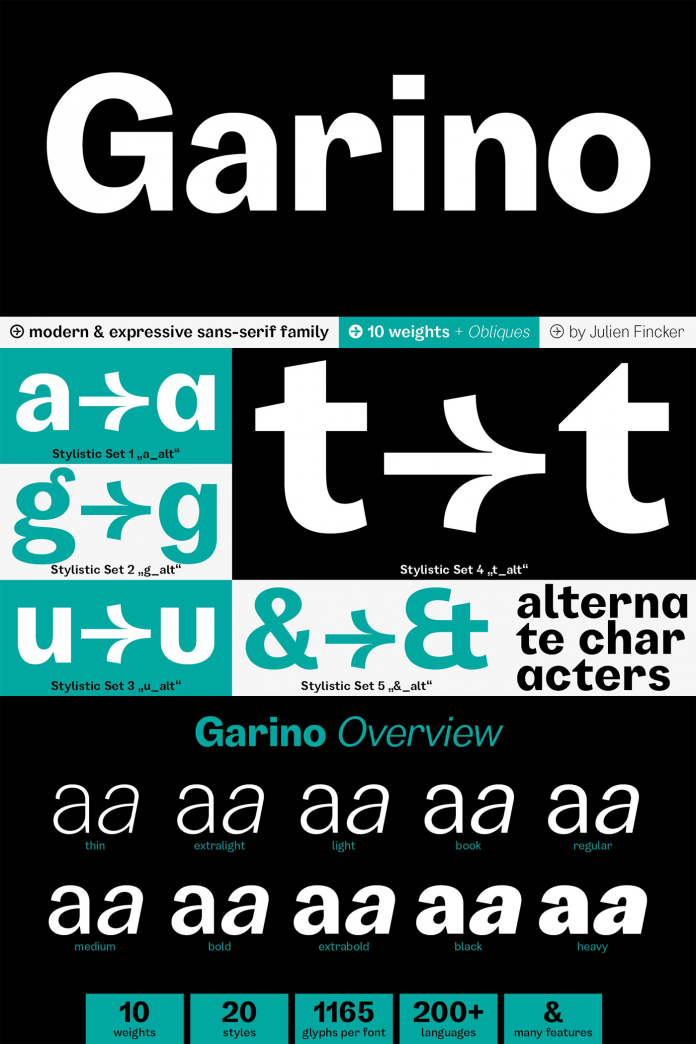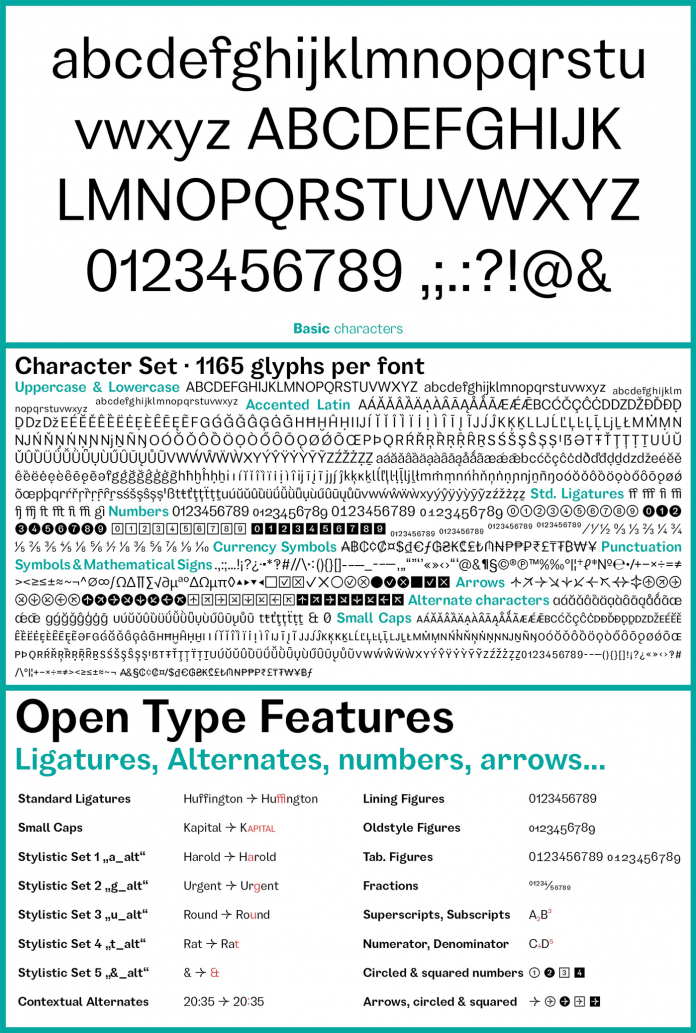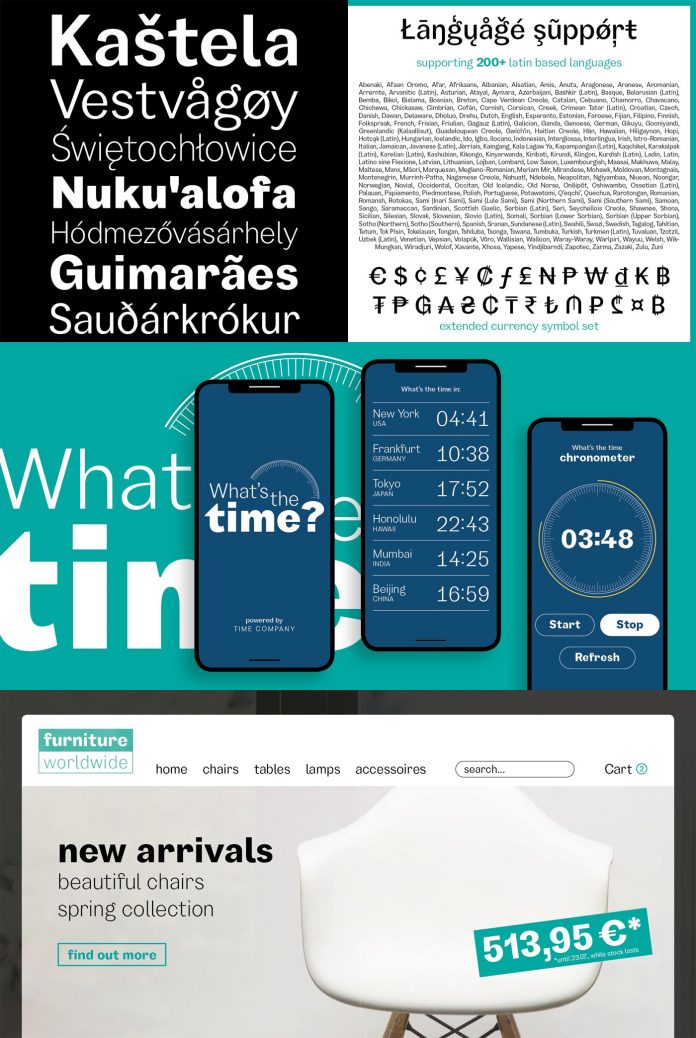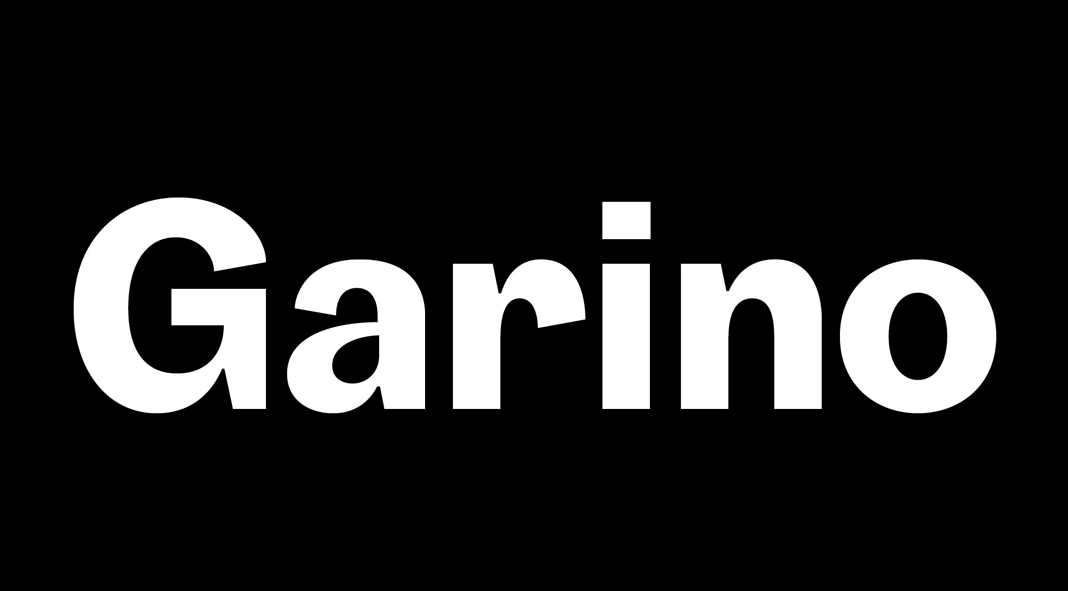
Garino, an expressive sans-serif font family with many typographic features.
Designed and published in 2021 by Julien Fincker, Garino is a modern sans-serif font family that gains its expressive look from a dynamic sweep in its curves and high-contrast transitions. Garino’s thinner and thicker weights are well suited for striking headlines, while its middleweights can be used for body texts and a wide range of typographic challenges. Thanks to an extensive character collection and plenty of typographic features, Garino is a real workhorse.
Julien Fincker has equipped this versatile typeface with 20 styles, ranging from thin to heavy plus matching italics for each weight. The extensive character set covers more than 200 Latin-based languages. It has an extended set of currency symbols, arrows, and a wide range of Open Type features including alternative characters as stylistic sets, small caps, automatic fractions, etc.